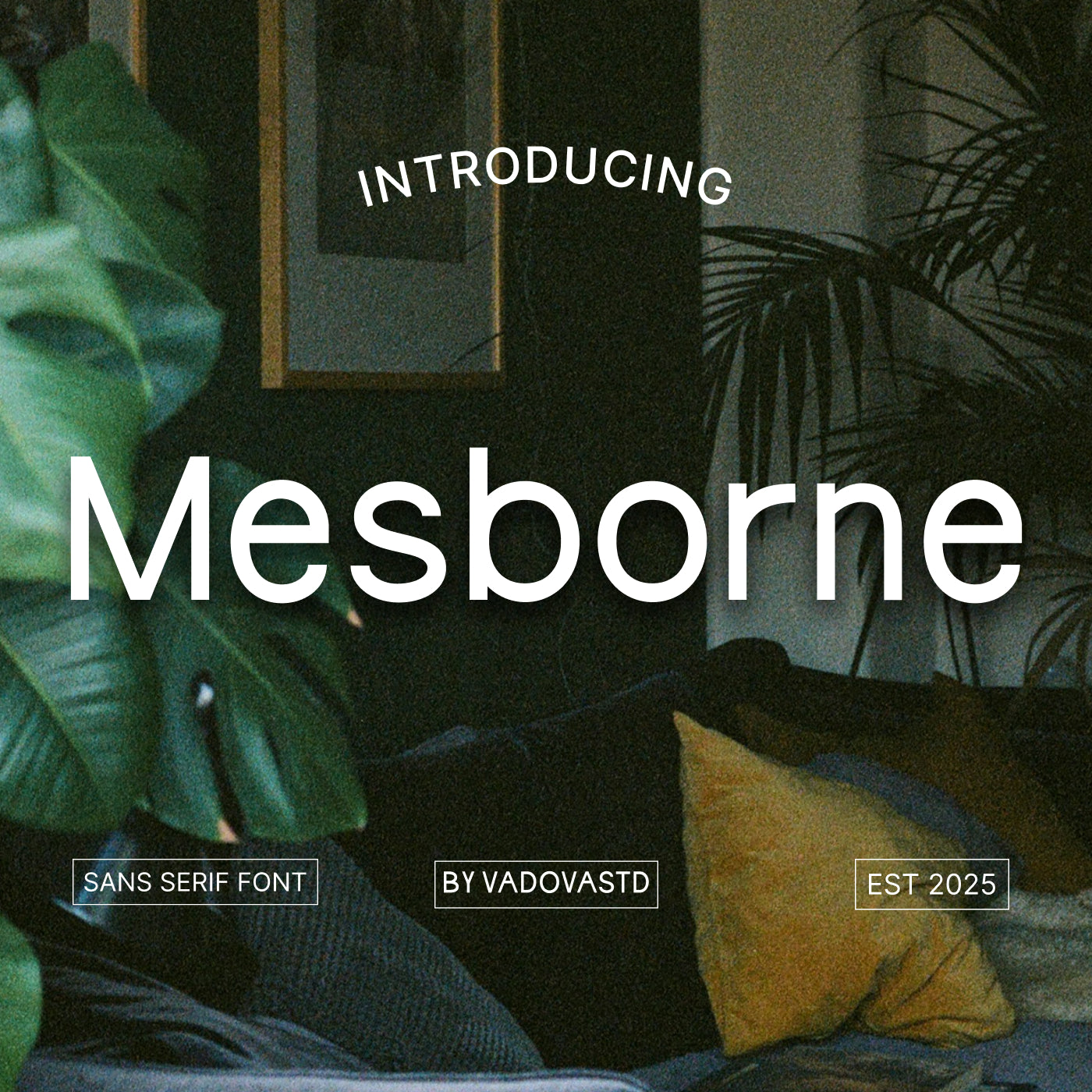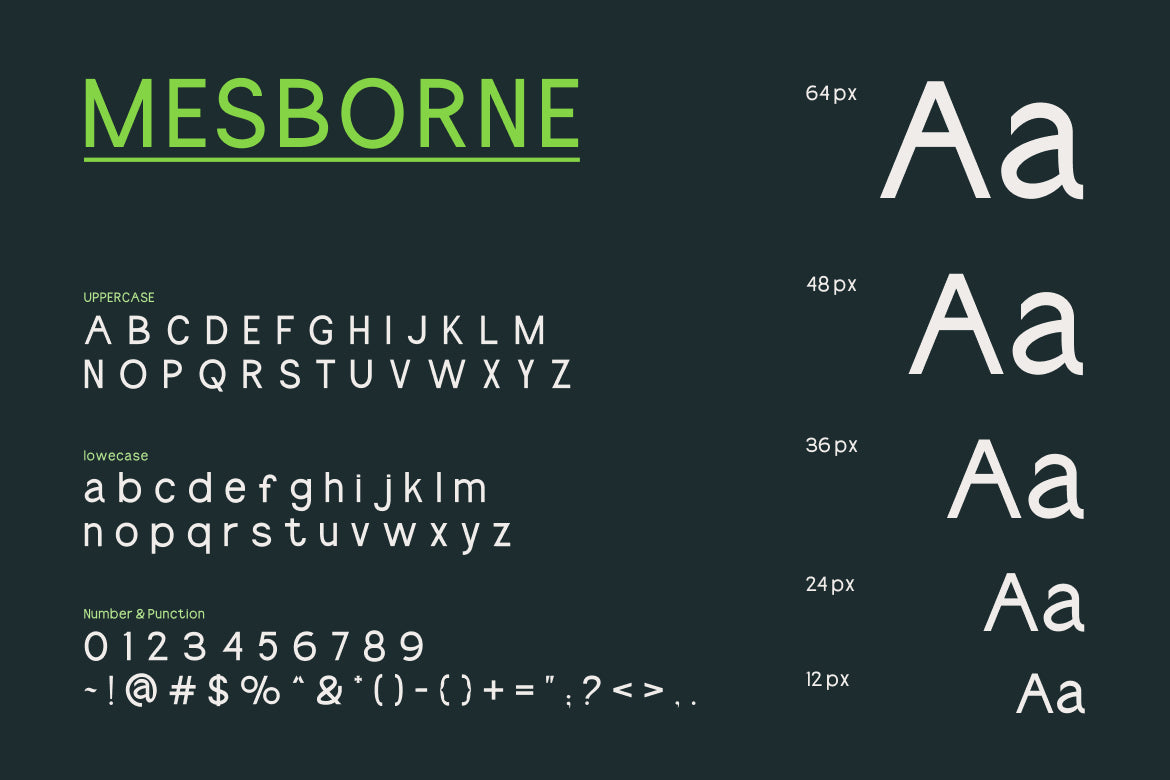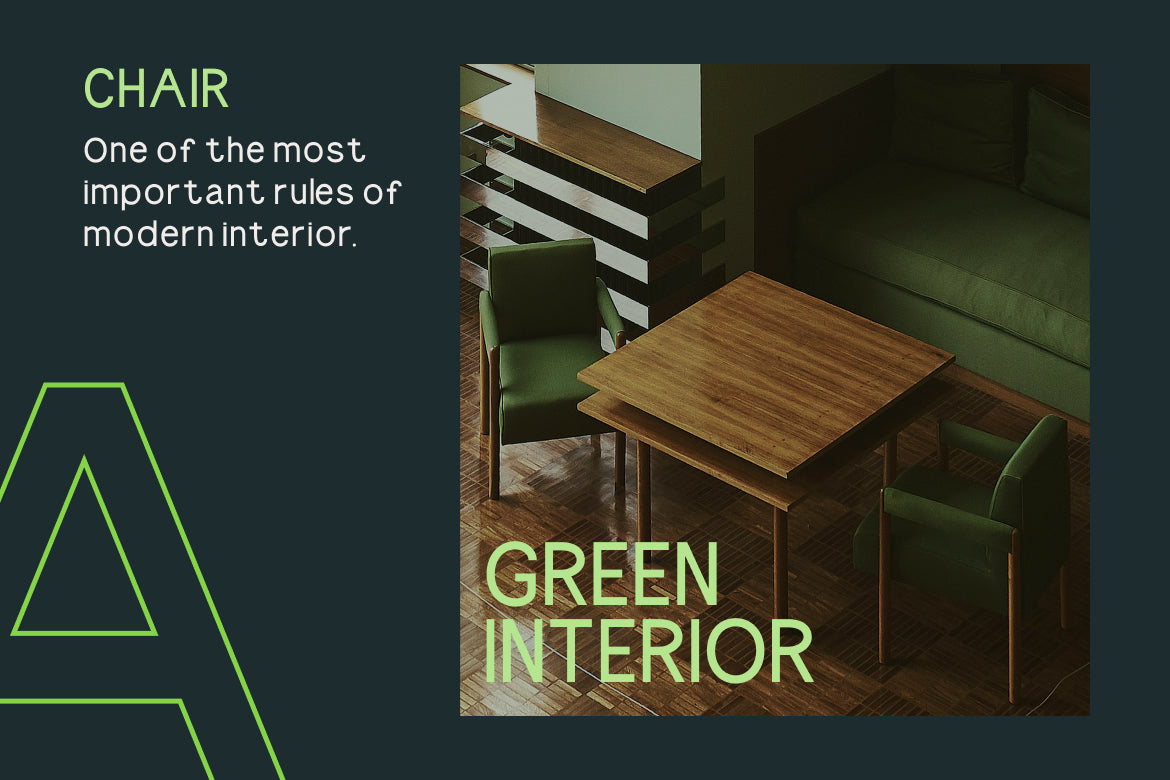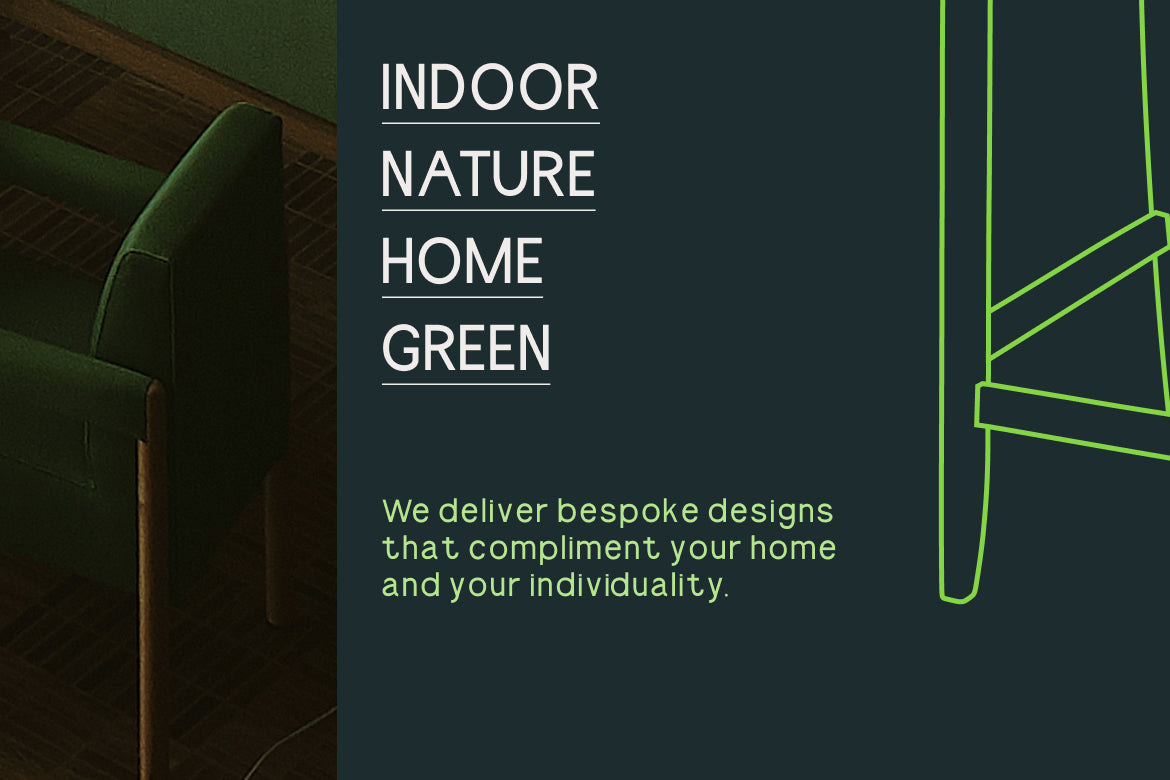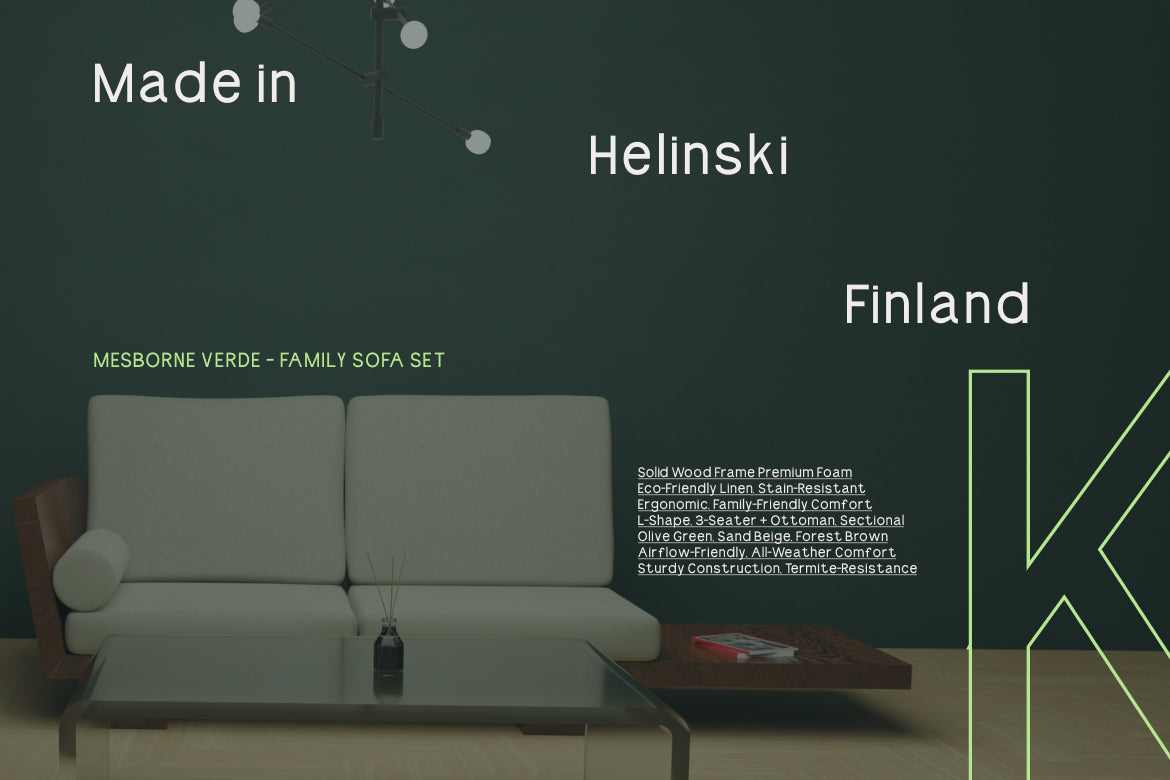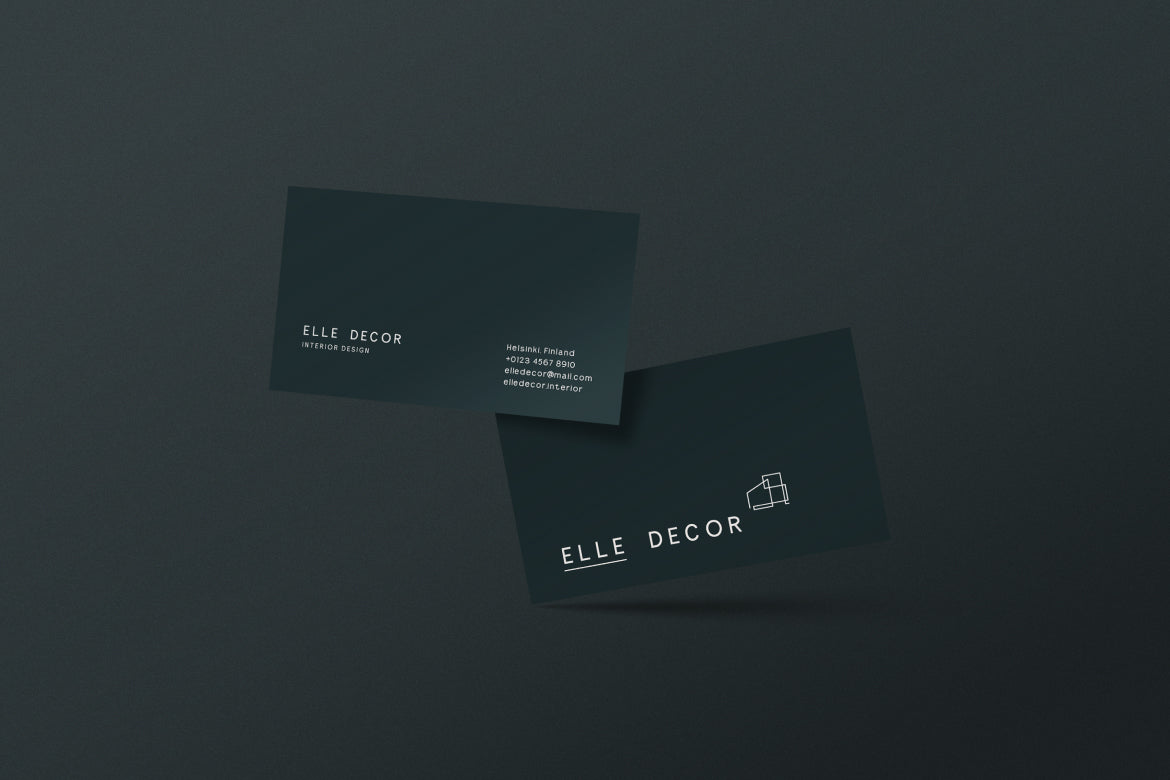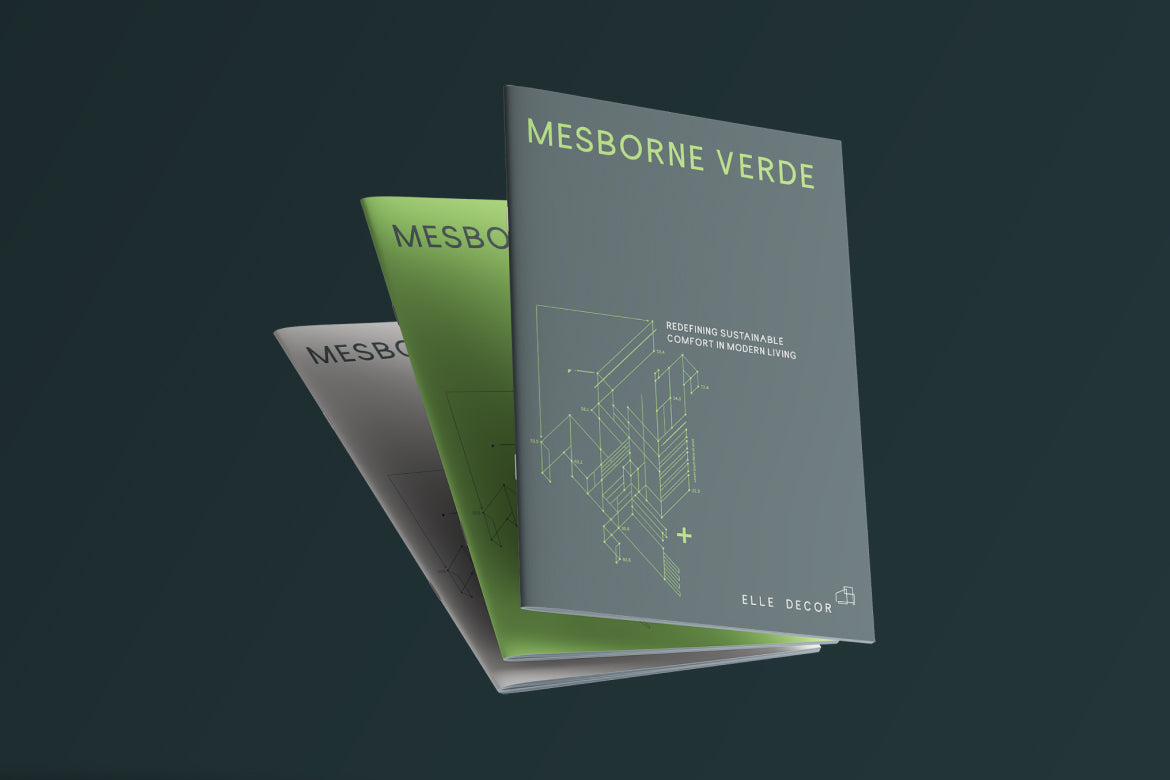
Mesborne Sans Serif Font
Mesborne Modern Sans Serif Font presents a clean and contemporary typeface with balanced proportions, smooth curves, and a refined geometric structure. The design emphasizes clarity and readability while maintaining a sleek, minimal aesthetic suited for modern visual compositions. It includes uppercase, lowercase, numbers, punctuation. Delivered in fully scalable formats for professional design workflows. Built with a versatile and timeless approach that blends simplicity with a subtle sophisticated character.
Relevance and Use Cases is perfect for corporate branding, modern presentations, editorial layouts, UI/UX design, website interfaces, interior design branding, architecture portfolios, digital products, and marketing materials that require a clean, structured, and professional typographic appearance with strong readability and contemporary visual balance.
Mesborne is a sans serif typeface with balanced proportions and a geometric structure, including uppercase and lowercase characters, numerals, and punctuation. It is available in TTF, OTF, and WOFF formats.